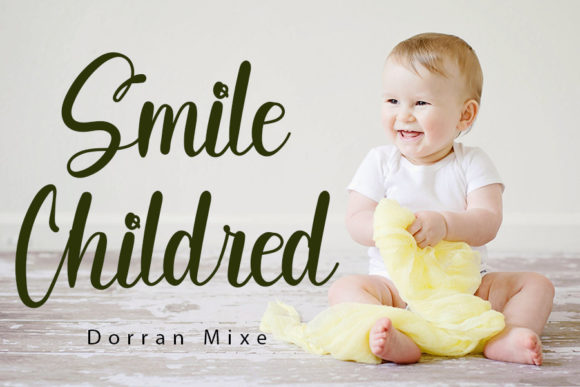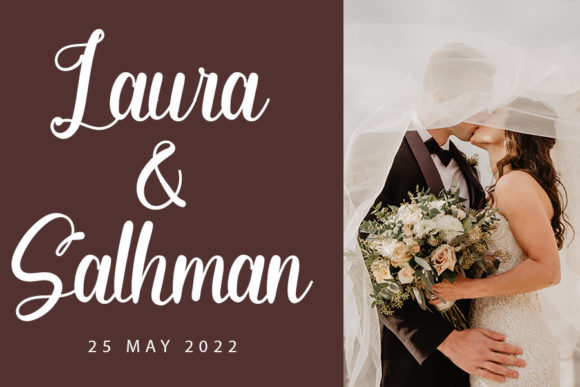
Babysmile Font
db-ku.com - Script & Handwritten -- Babysmile is a trendy handwritten font with a contemporary atmosphere and impeccable form, inspired by timeless classic calligraphy. It will add elegance and class to any of your design projects.